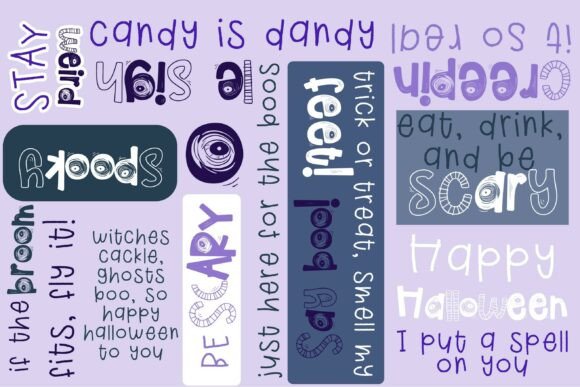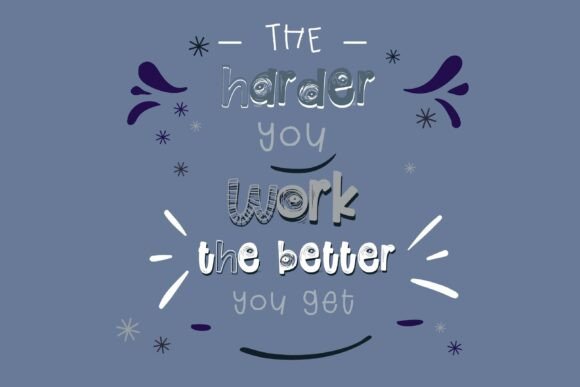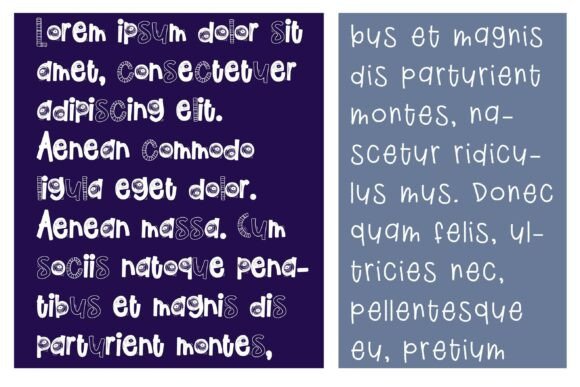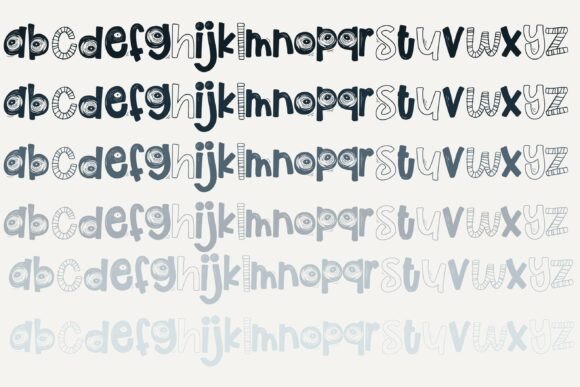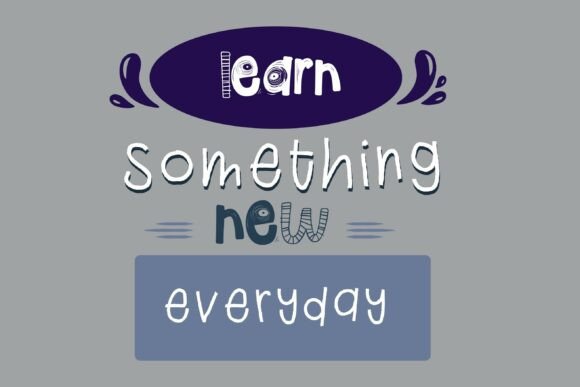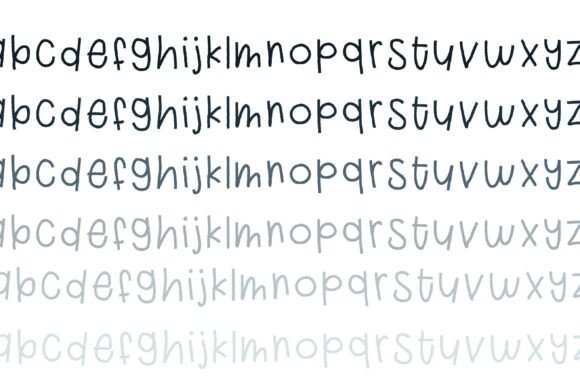
Unleashing Creativity with Cowberry Scary Duo Font
Have you ever stared at a blank page, trying to come up with the perfect design concept? The blank space can be intimidating, but it’s also a blank canvas waiting for your creativity to shine through. For designers, finding the right font can be the difference between a good design and a great one.
Cowberry Scary Duo Font is a hand-crafted font duo that combines a creepy, scary, eyeball-infused font with a simple, perfectly coordinated print. With seven family members combined, this font offers endless possibilities for designers looking to add a unique touch to their projects. The value of Cowberry Scary Duo Font lies in its versatility, making it a valuable asset for designers who want to create a range of designs, from spooky to playful, and everything in between.
Cowberry Scary Duo Font Key Features
- Font Family: A unique and playful duo font, perfect for adding a spooky touch to designs.
- Unique Characteristics: Features a pair of connected fonts, allowing for creative pairings and unique typography.
Cowberry Scary Duo Font Review
I recently had the chance to work with the Cowberry Scary Duo Font, and I’m excited to share my honest review.
- The font has a unique and playful design that’s perfect for Halloween-themed projects or anything that needs a spooky vibe.
- The bold and regular weights of the font are well-designed and work well together, making it easy to create visually appealing combinations.
- The font is highly customizable, with options to adjust the size, color, and spacing to fit your design needs.
- The font may not be suitable for formal or professional projects, as it has a somewhat childish and playful feel.
- The font’s design can be a bit overwhelming if used excessively, so be careful not to overdo it.
Overall, I think the Cowberry Scary Duo Font is a fun and creative option for designers looking to add a spooky touch to their projects. While it may not be suitable for all projects, it’s a great choice for Halloween-themed designs or anything that needs a playful vibe.
Cowberry Scary Duo Font Practical Application Guide
Getting the Most Out of the Font
To get the most out of the Cowberry Scary Duo Font, experiment with different font sizes, colors, and combinations with other fonts.
Use the font to add a spooky or playful touch to your designs.
Consider using the font for Halloween-themed designs, invitations, or party decorations.
The Cowberry Scary Duo Font is ideal for:
Spooky or Halloween-themed designs.
Playful or whimsical designs.
Invitations or party decorations.
Alternatives to Cowberry Scary Duo Font for Designers
Great Vibes is a handwritten font that conveys a sense of elegance and sophistication. It’s perfect for creating a unique and eye-catching design that stands out from the crowd. Use it for invitations, quotes, or other creative projects where you want to add a touch of personality.
Comparison to Cowberry Scary Duo Font: While Cowberry Scary Duo Font has a spooky and playful vibe, Great Vibes is more elegant and refined. Great Vibes is ideal for projects that require a more sophisticated and mature look.
Pacifico is a beautiful and elegant script font that’s perfect for creating a sense of relaxation and calmness. It’s ideal for projects that require a touch of sophistication and elegance, such as wedding invitations, luxury brands, or spa designs.
Comparison to Cowberry Scary Duo Font: Pacifico is a more refined and elegant font compared to Cowberry Scary Duo Font. While Cowberry Scary Duo Font is perfect for spooky and playful projects, Pacifico is better suited for more formal and sophisticated designs.